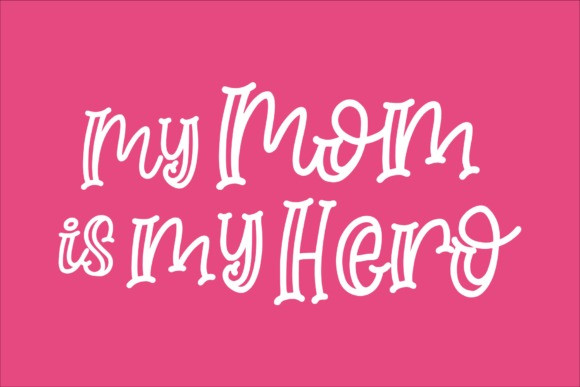
Spring Story Display Font
Spring Story is a cute and fun display font. Unique and playful, this font is perfect for kids-themed designs, especially when paired with bright colors.